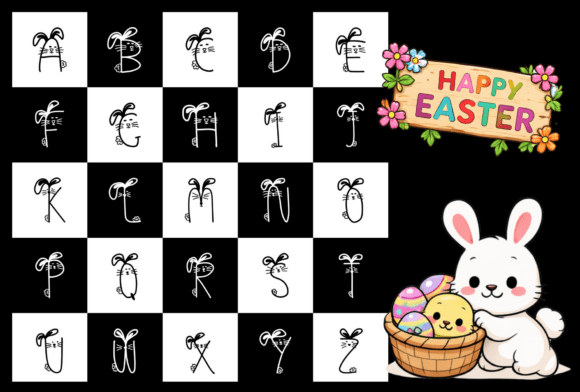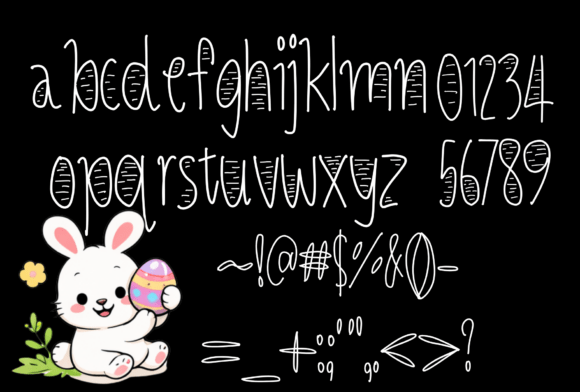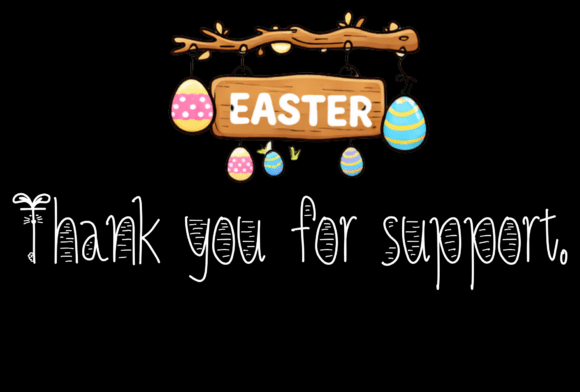
Spring into Creativity with Bunny Cute Font
As you sit down to plan your Easter-themed projects, you’re probably thinking about how to capture the whimsical spirit of the season. You might be rummaging through your digital assets, searching for the perfect font to bring your designs to life. That’s where the Easter Bunny – Cute & Playful Handwritten Display Font comes in – a charming display font designed to add a touch of sweetness and personality to your creations.
This delightful font is more than just a pretty face; it’s a valuable tool for designers looking to add a playful twist to their projects. With its unique bunny-themed uppercase set and doodle-style lowercase set, the Bunny Cute Font is perfect for crafting, designing party invitations, or creating custom Easter merchandise that kids and adults alike will love.
Bunny Cute Font Key Features
- Font Family: Bunny Cute Font is a unique, hand-drawn font family designed to resemble cute bunnies.
- Unique Characteristics: Features cute bunny illustrations, making it ideal for children’s books, nursery rhymes, and other kid-friendly content.
Bunny Cute Font Review
I recently had the chance to work with the Bunny Cute Font, and I must say it’s a unique and adorable addition to any design project. Here are some of the things that worked well:
- ✨ The font’s playful and whimsical feel is perfect for kids’ projects, nursery decor, or any design that needs a touch of cuteness.
- ✨ The Bunny Cute Font is highly customizable, with various styles and sizes available to suit different design needs.
- ✨ The font is easy to read and understand, even at smaller sizes, making it a great choice for body text or headlines.
- ⚠️ The font’s cuteness can be overwhelming if overused, so it’s essential to use it sparingly to avoid visual overload.
- ⚠️ The font may not be suitable for formal or professional projects, as it can come across as too childish or playful.
- ⚠️ The font’s customization options can be a bit overwhelming, especially for beginners, so it’s essential to have a clear design concept before using it.
Overall, I think the Bunny Cute Font is a great addition to any designer’s toolkit. While it may have some limitations, its unique charm and customization options make it a versatile and fun font to work with.
Tips for Getting the Most Out of the Bunny Cute Font
Use the Bunny Cute Font for whimsical and playful designs, such as children’s books, party invitations, and social media graphics.
To add extra flair, pair the Bunny Cute Font with bold, colorful graphics and illustrations.
The Bunny Cute Font is perfect for:
- Social media graphics and posts
- Wedding stationery and decorations